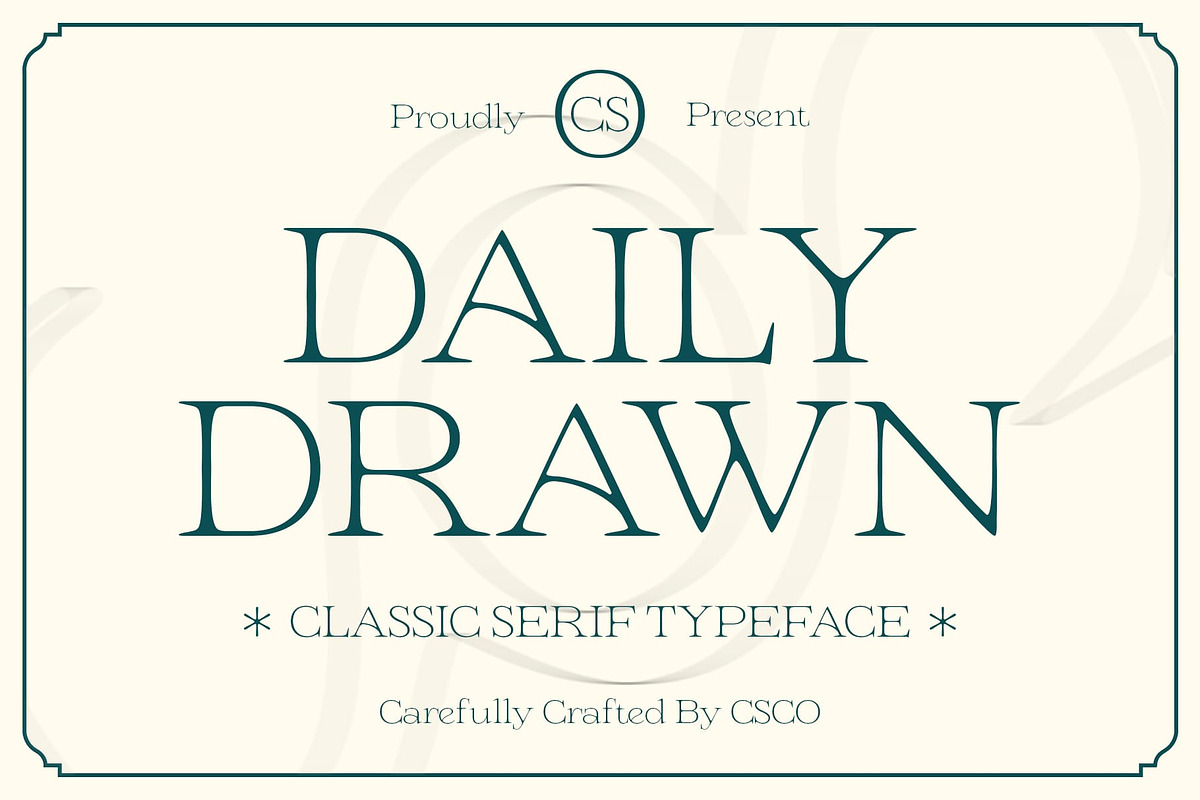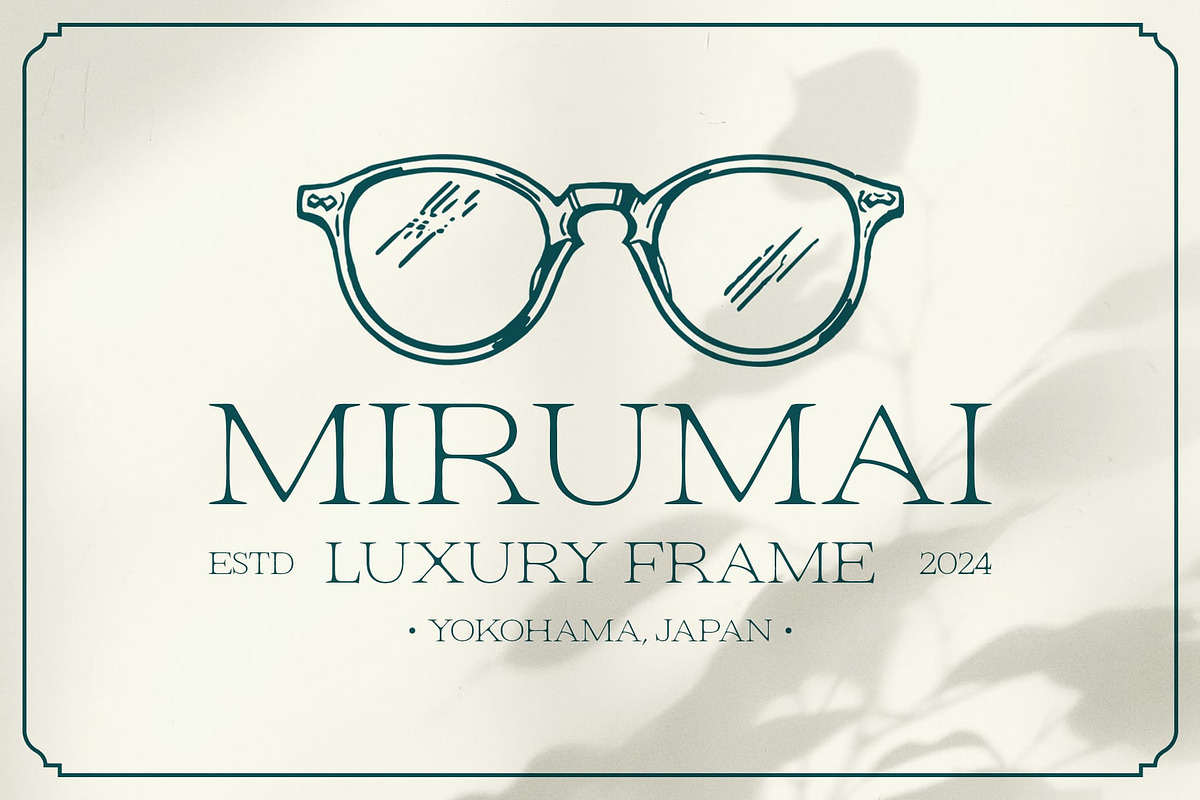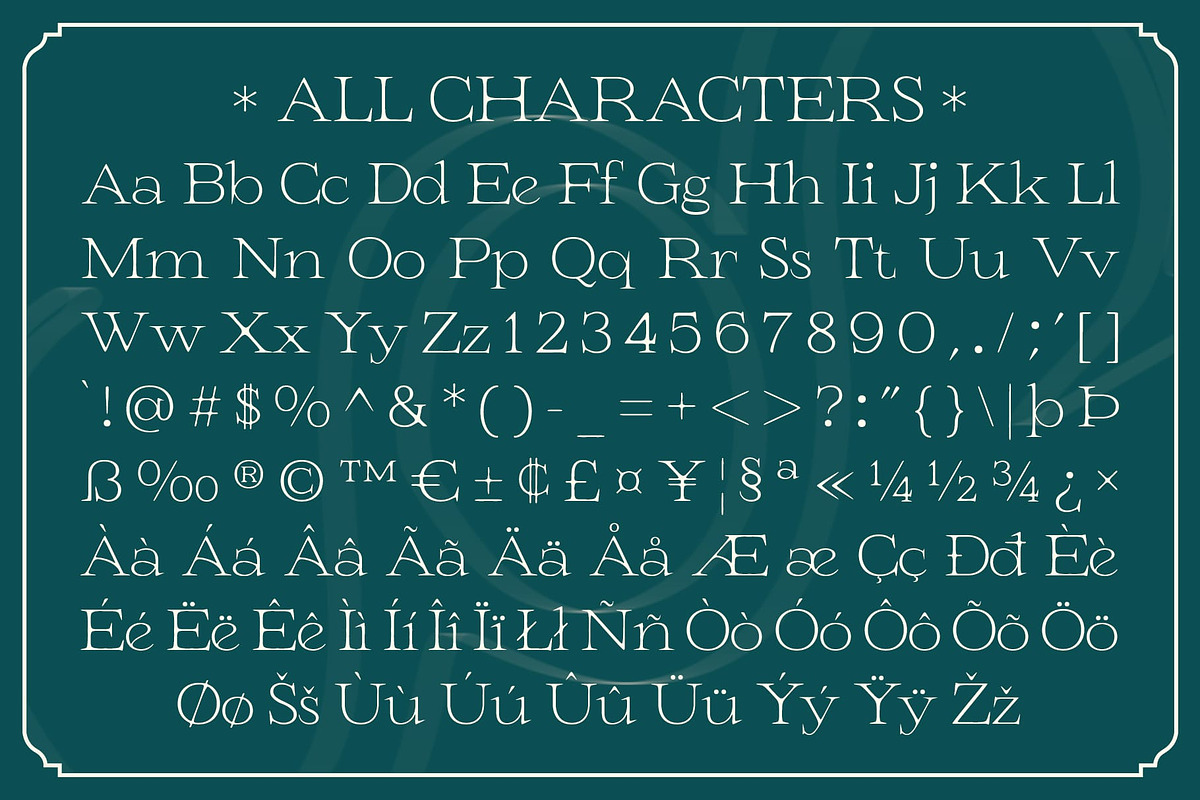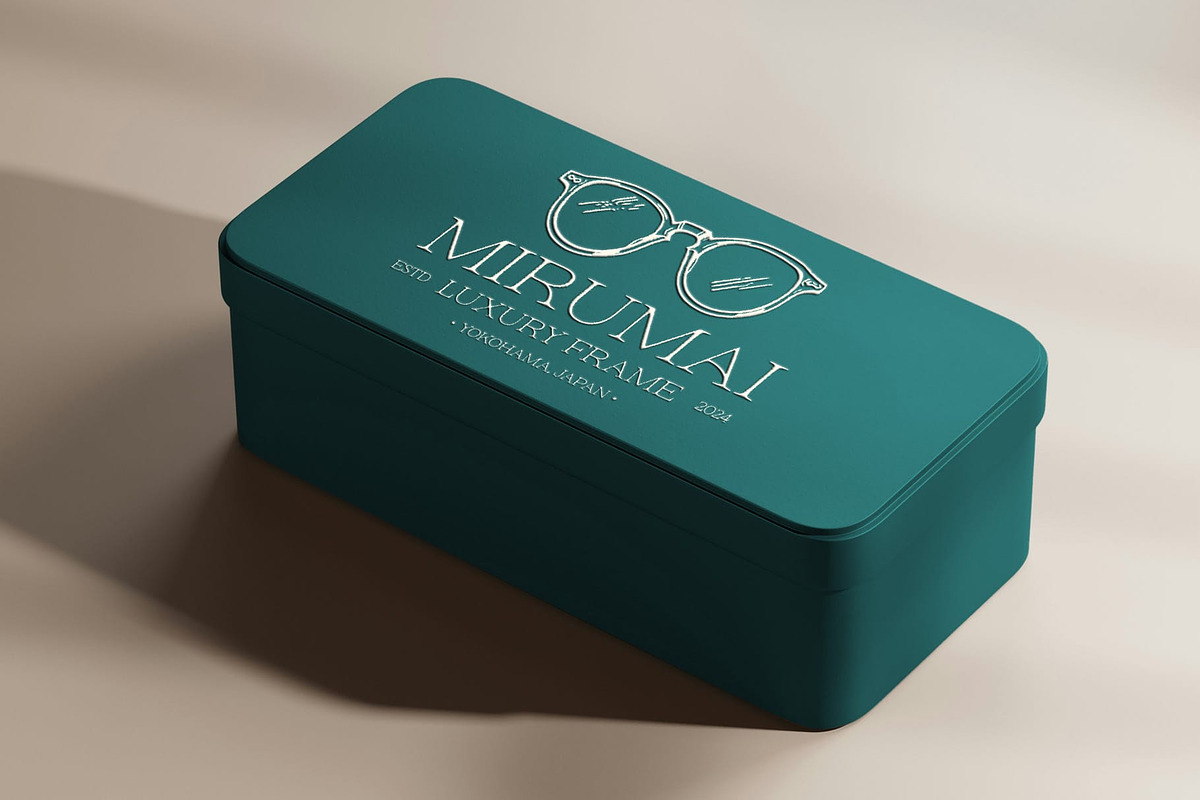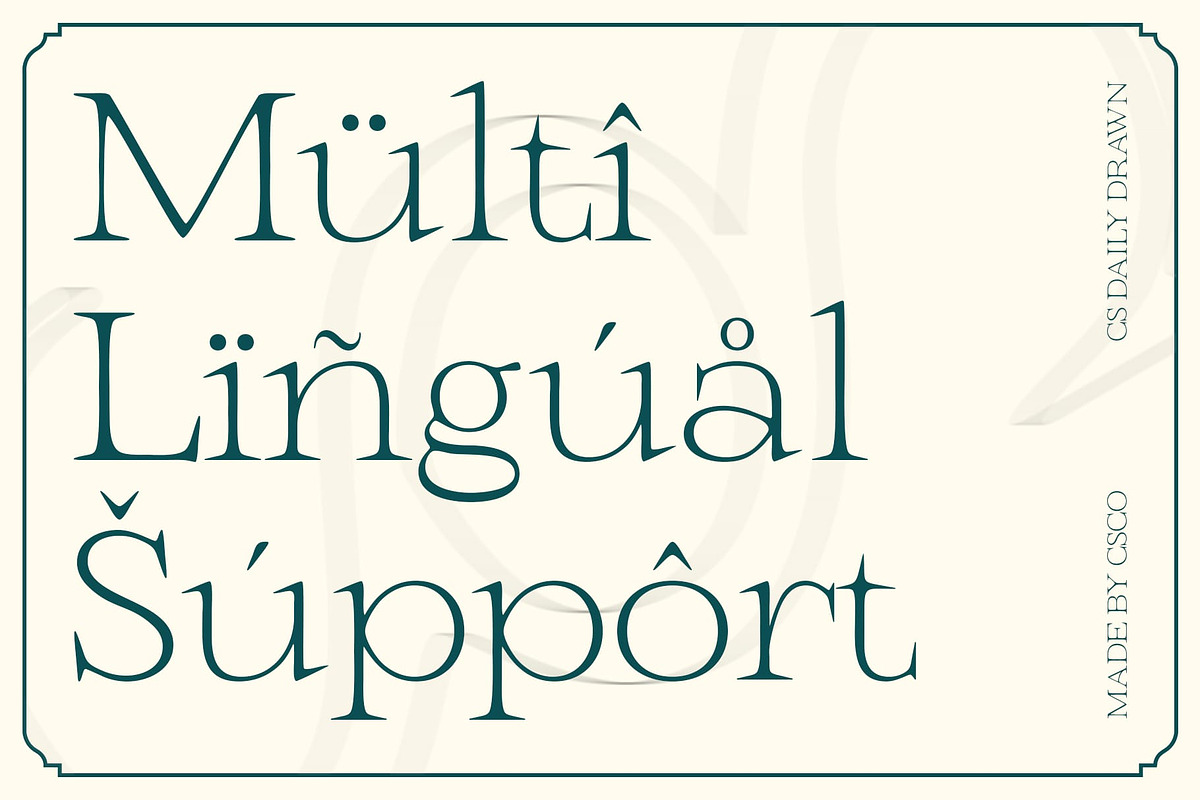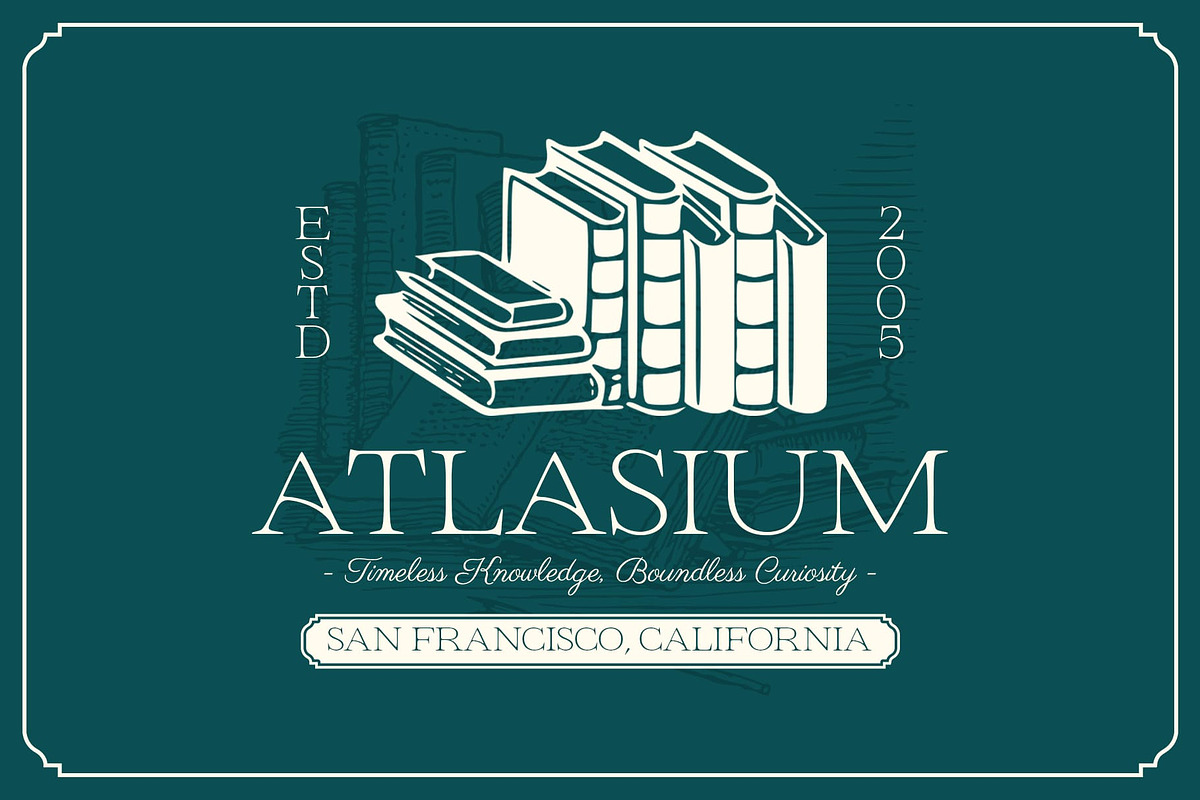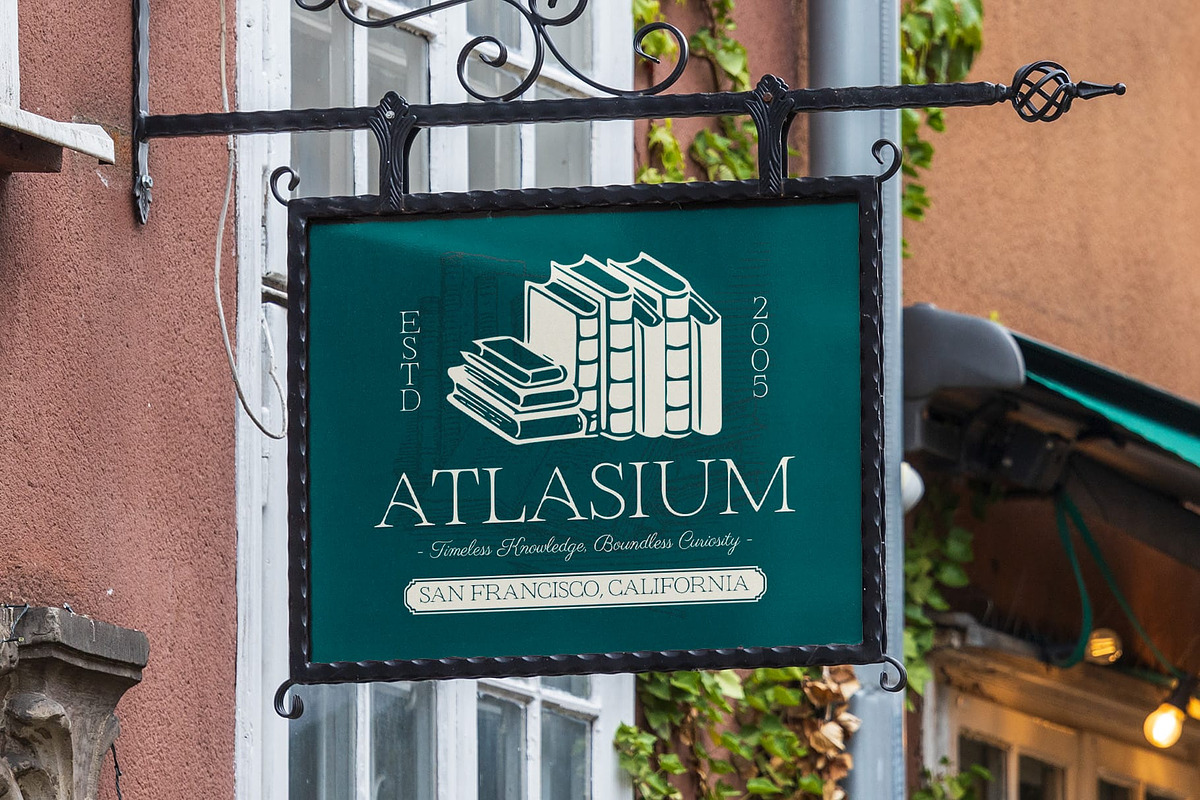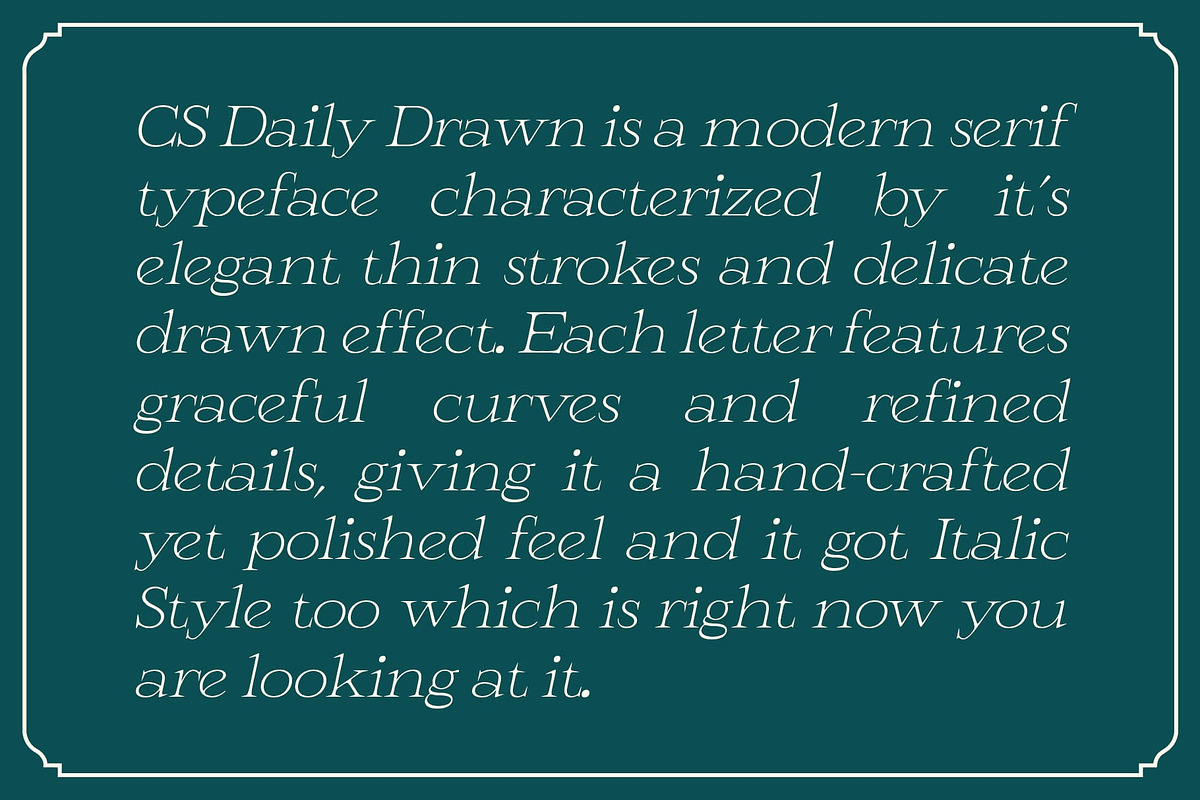
CS Daily Drawn
CS Daily Drawn: Where Minimalism Meets Elegance
Modern Serif Font with Sleek Design This is a modern serif font that embodies minimalist aesthetics through its sleek and clean design. The proportional lines create a refined and elegant impression, making this font a versatile choice for contemporary applications. Each letter showcases a balance of form and function, providing a sophisticated look that is both appealing and easy to read.
Subtle Serif Elements for Gentle Luxury The defining characteristics of this drawn font include simple yet classy typography, where the serif elements are subtly integrated, avoiding overly ornate details. This understated elegance offers a sense of gentle luxury, making it perfect for projects that require a touch of sophistication without being overwhelming. Its ability to blend seamlessly into various design contexts enhances its appeal for discerning designers.
Artistic Layered Drawn Effect Adding to its uniqueness, the layered drawn effect introduces a personal and artistic touch to the font. This design feature makes the letters appear more vibrant and dynamic, adding depth and character that sets this drawn font apart from traditional serif fonts. The result is a font that not only conveys information but also enhances the visual narrative of any project.